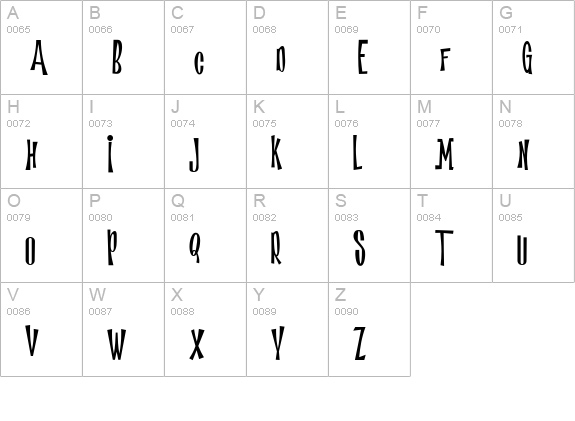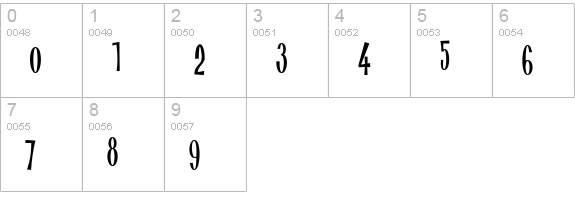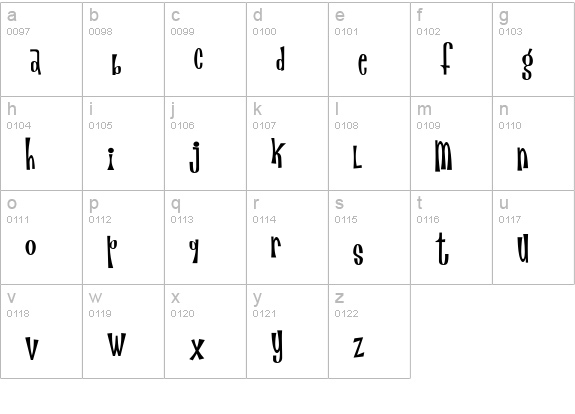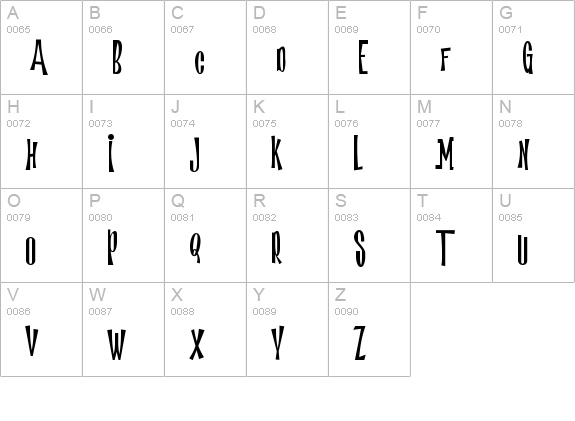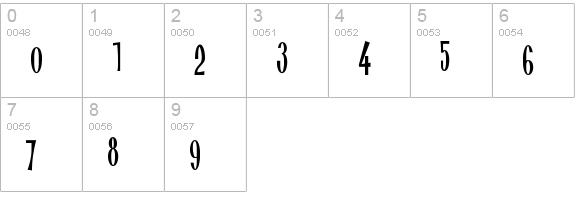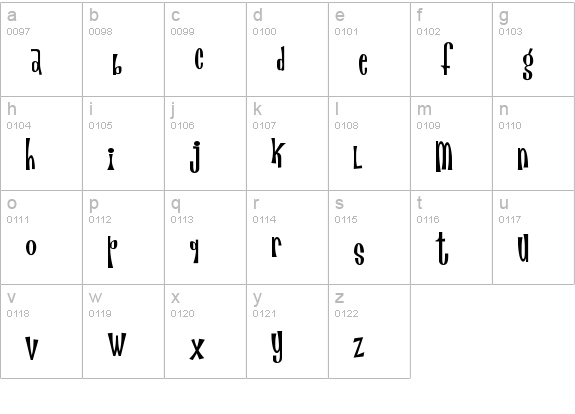
MagicTwangerNF Font Details
MagicTwangerNF is a whimsical and playful font that will add a touch of magic to any project. With its unique and eye-catching letterforms, this font is perfect for creating attention-grabbing headlines, logos, and posters. The letters have a hand-drawn quality, giving them a charming and organic feel. MagicTwangerNF is a versatile font that can be used for both digital and print designs, making it a great choice for designers, artists, and anyone looking to add a touch of enchantment to their work. But what makes MagicTwangerNF truly special is that it is available for free! That's right, you can download this fantastic font at no cost from FontsMarket.com. Whether you're a professional designer or just starting out, this font is an excellent addition to your typography collection. So don't miss out on the opportunity to enhance your projects with the magic of MagicTwangerNF. Download it today and let your creativity soar!